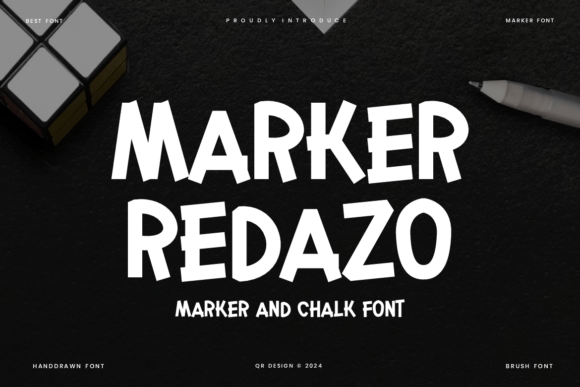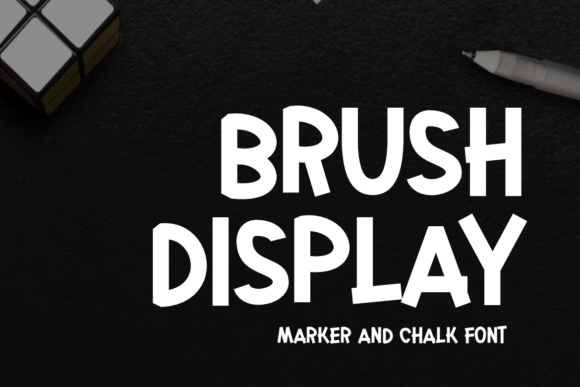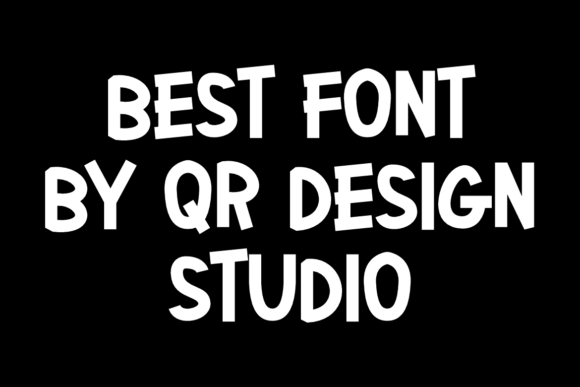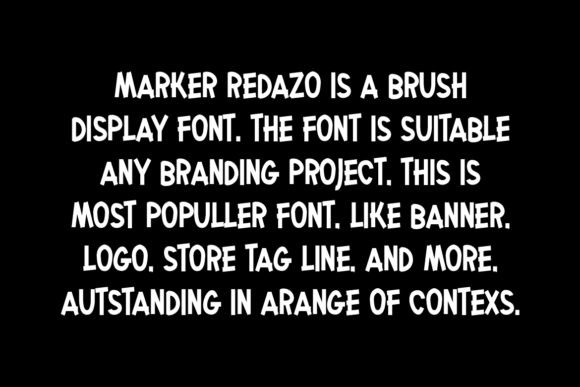
Marker Redazo Font: A Playful Handwritten Display Font
About the Marker Redazo Font
Crafted with precision, the Marker Redazo Font is ready to bring your ideas to life. Marker Redazo is a sweet and friendly handwritten font. Its natural and unique style makes it incredibly fitting to a large pool of designs. The only limit is your imagination!
Marker Redazo excels in headlines, short taglines, and branding elements where its friendly, handwritten charm can shine. It’s ideal for projects targeting a younger demographic or conveying a playful, approachable message. Consider using it for logos, social media graphics, packaging for food or children’s products, and short, impactful marketing materials. Avoid using it for large blocks of body text or UI elements; its informal nature would hinder readability.
Pairing Marker Redazo with a clean sans-serif like Open Sans for body text creates a strong contrast, balancing its handwritten informality with a modern, legible base. Alternatively, a classic serif font like Garamond could provide a touch of sophistication, adding a layer of elegance to the overall design. For a more playful feel, consider pairing it with a geometric sans-serif such as Futura.
The font’s core personality is undeniably friendly and approachable, conveying warmth and approachability. Its slightly irregular letterforms add a unique, handmade touch, making it perfect for projects that require a personal and inviting aesthetic.